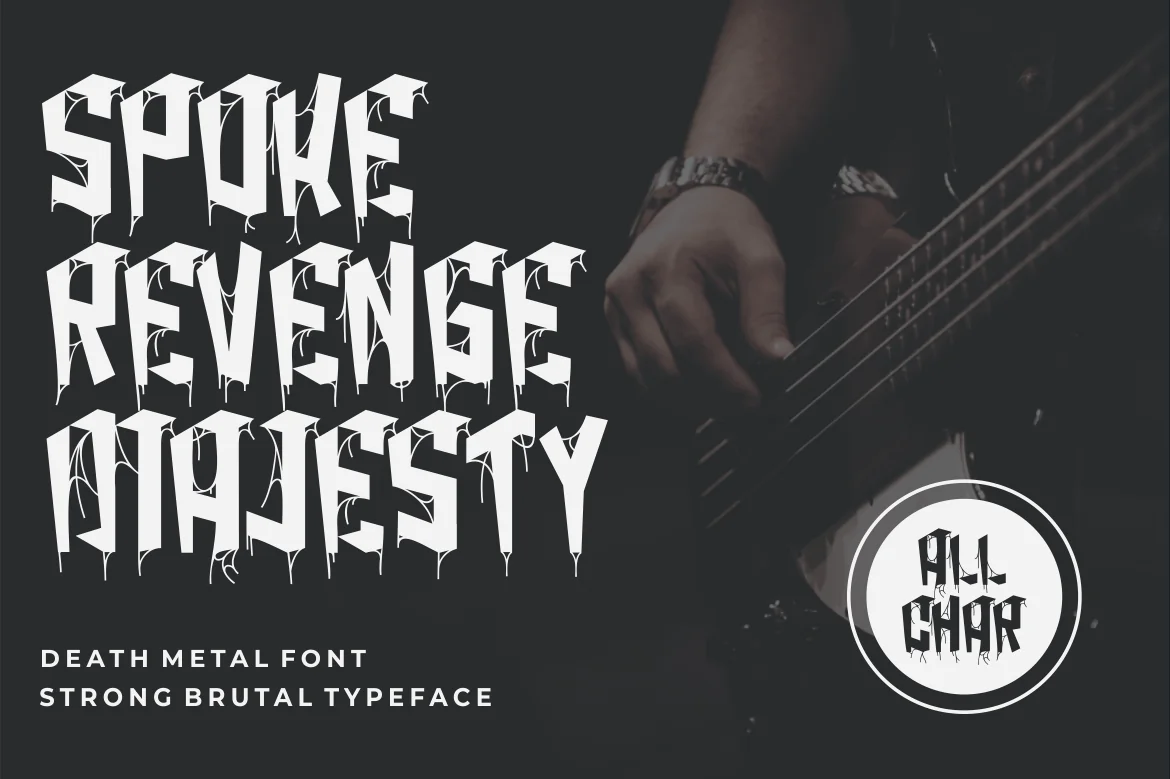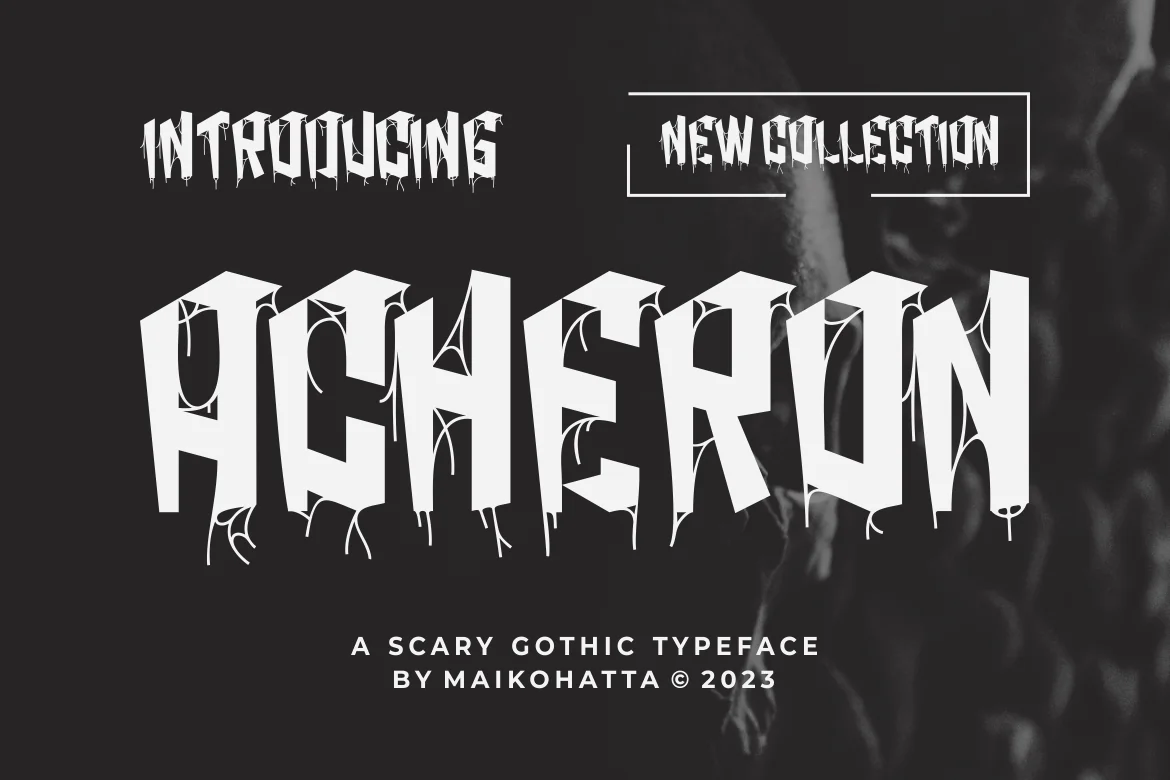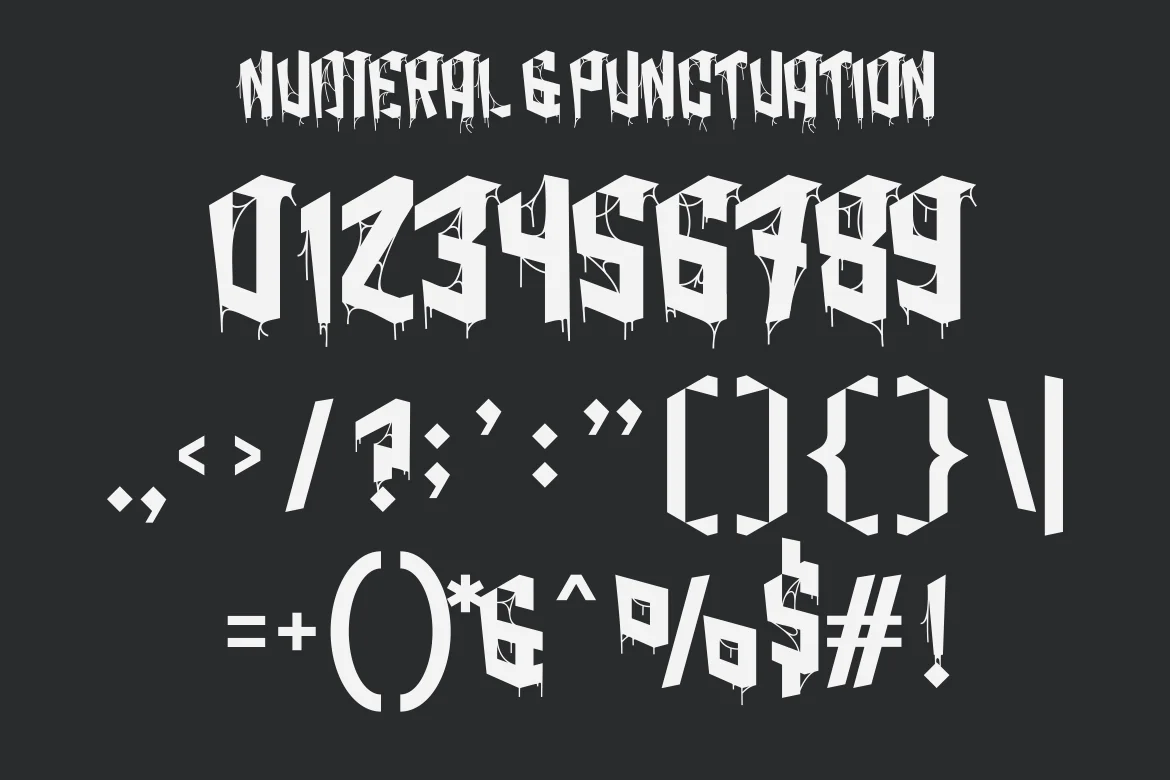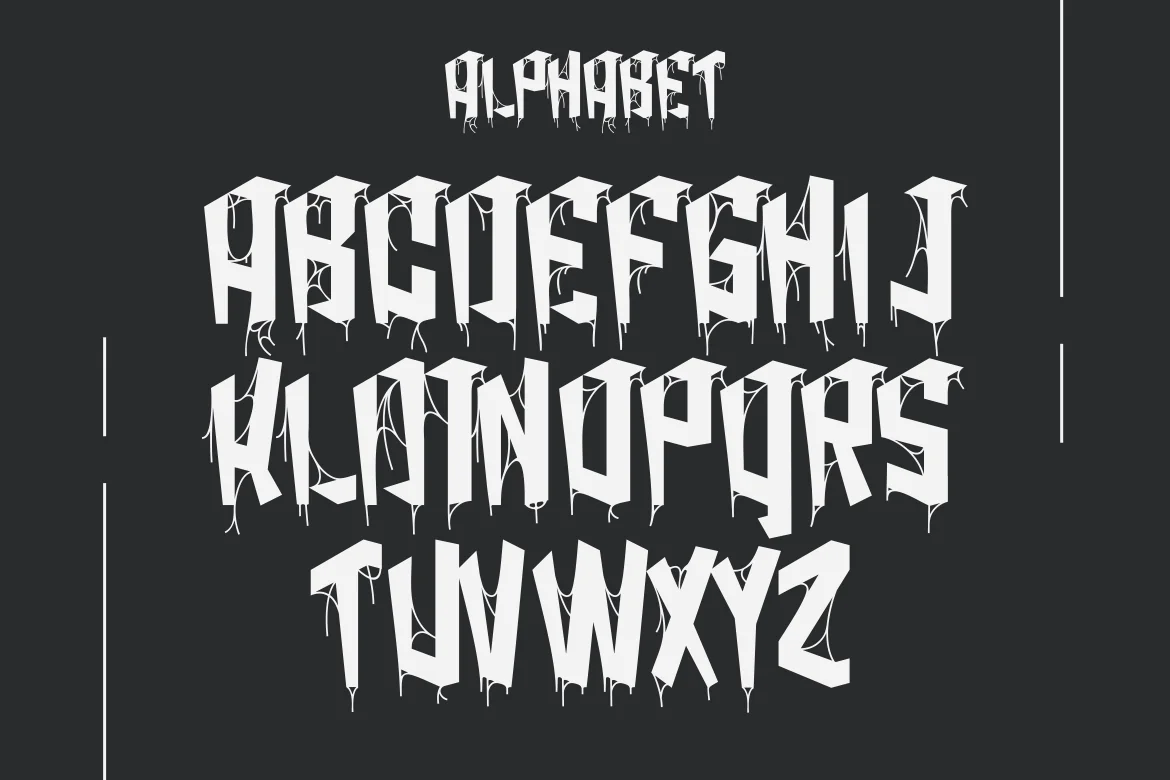
ACHERON FONT – Scary Gothic Typeface
Introducing our new product ACHERON FONT – Scary Gothic Typeface
ACHERON FONT is a classic styled font that can be applied to book covers, movie titles, rock albums, arcade games or even vintage beers! It’s the perfect choice for a decorative gothic look that remains legible at a smaller size.